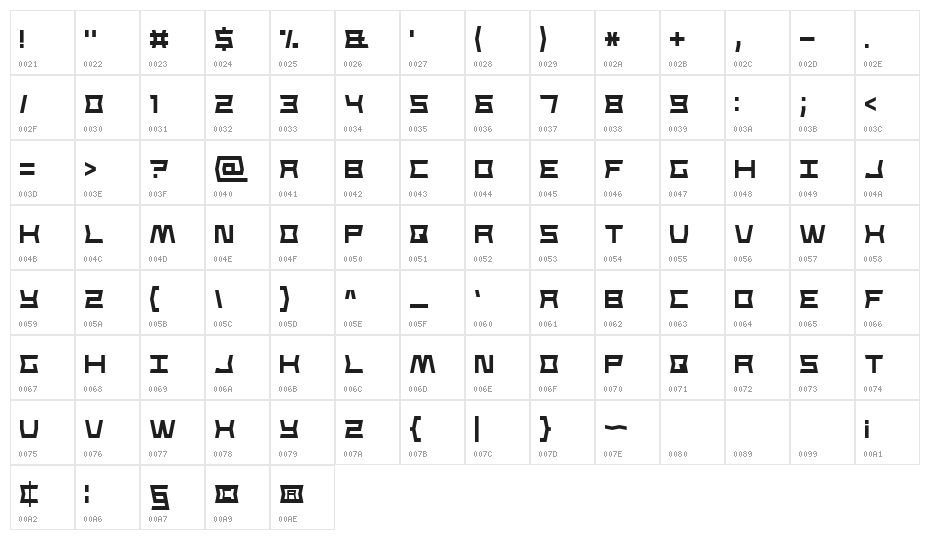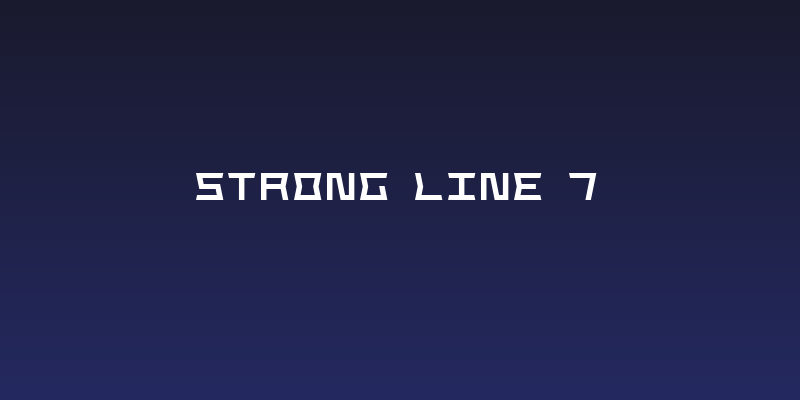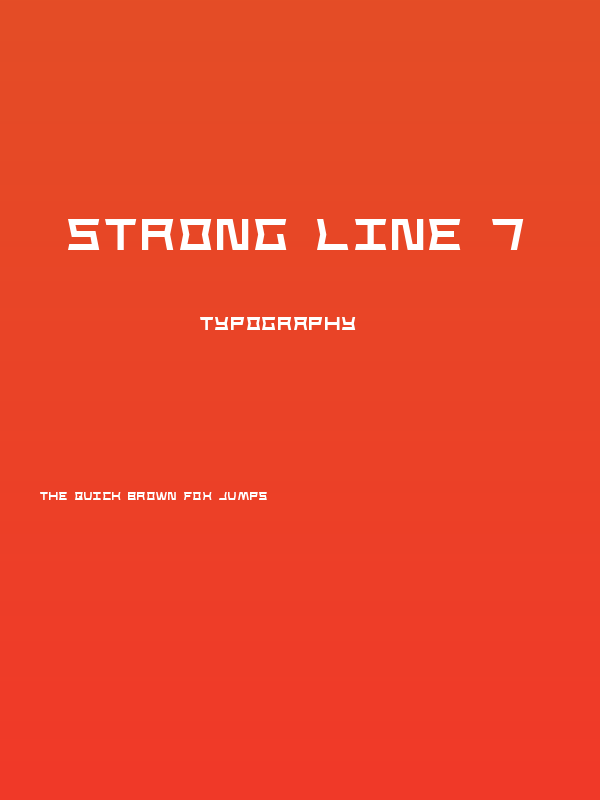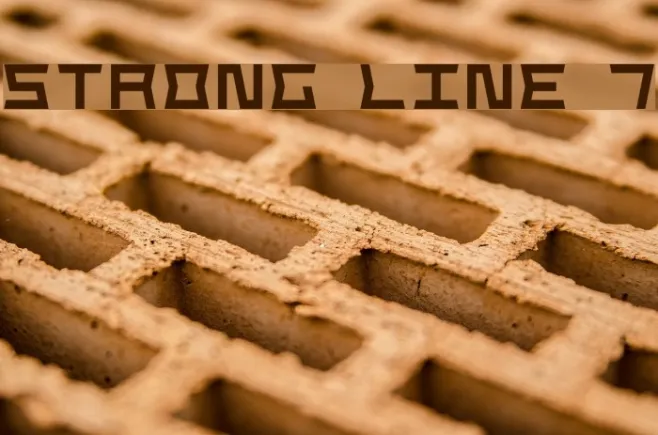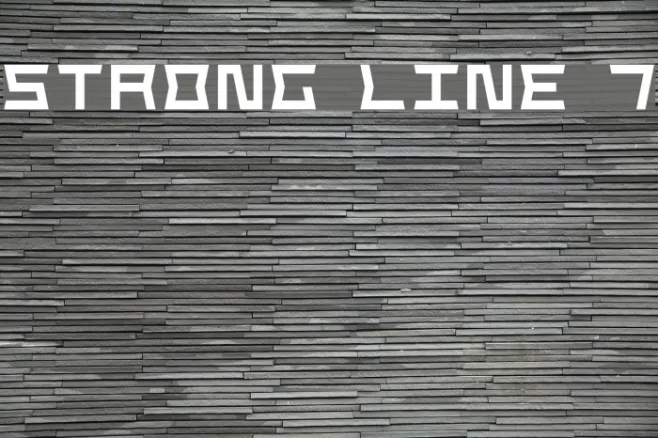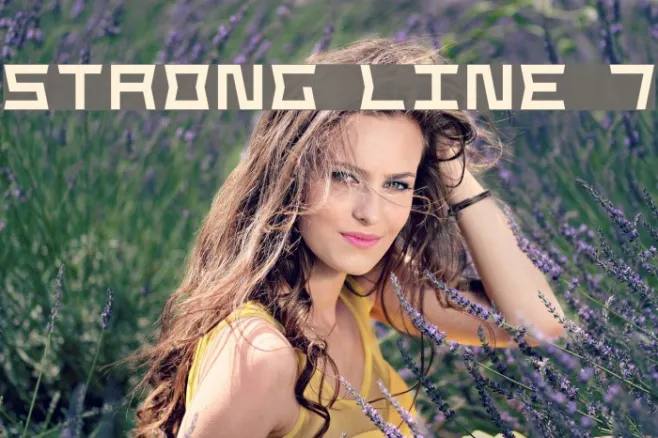
Strong Line 7 Font
Strong Line 7 Description
This font features a bold, geometric design with sharp angles and a futuristic aesthetic. The characters are constructed with thick, uniform strokes that create a strong visual impact. The uppercase and lowercase letters maintain a consistent style, with a focus on angular forms and straight lines. Numbers and special characters are designed to match the boldness and geometric nature of the alphabet, ensuring a cohesive look across all elements. The font's unique style makes it stand out, ideal for projects that require a modern and edgy appearance.
| Proposed Projects | Ideal for branding, posters, video game graphics, and sci-fi themed designs. |